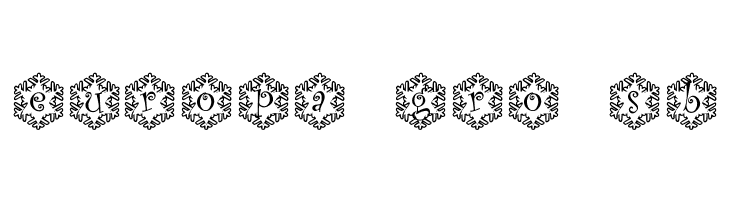
A playful, winter-themed decorative font with bold characters and festive elements.
A playful, decorative font with Easter-themed illustrations and text.
A playful decorative font with characters inside pots of gold.
A festive, decorative font with birthday-themed elements.
A playful, Easter-themed decorative font with outlined letters and festive graphics.
A whimsical font with festive characters integrated into each letter.
A festive font with uppercase letters in snowmen and lowercase in snowflakes.
A bold, patriotic font with Uncle Sam and American flag motifs.
A playful, party-themed decorative font with bold, festive characters.
A bold, decorative font with snowflake motifs for a festive look.